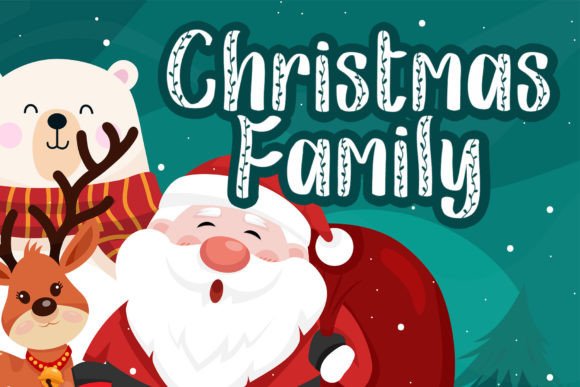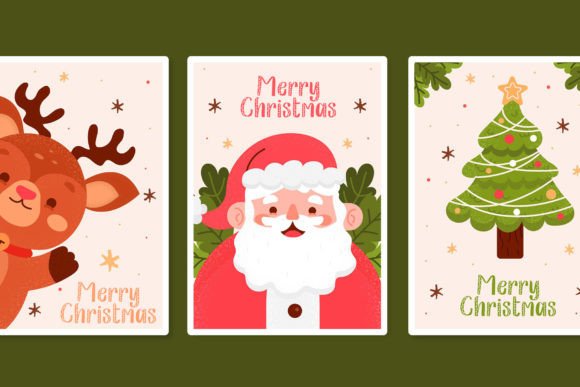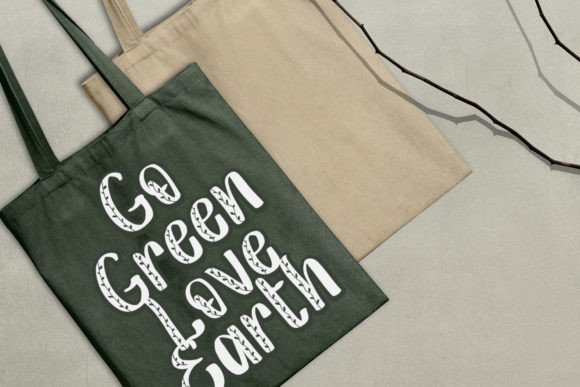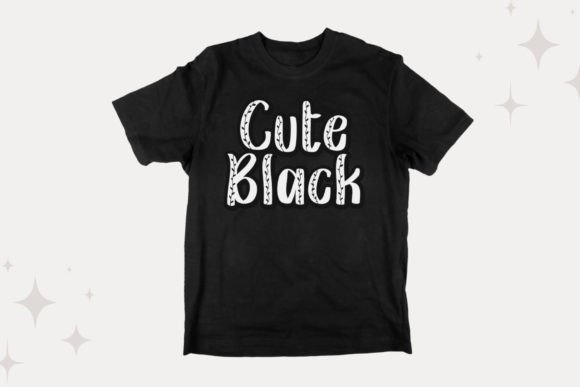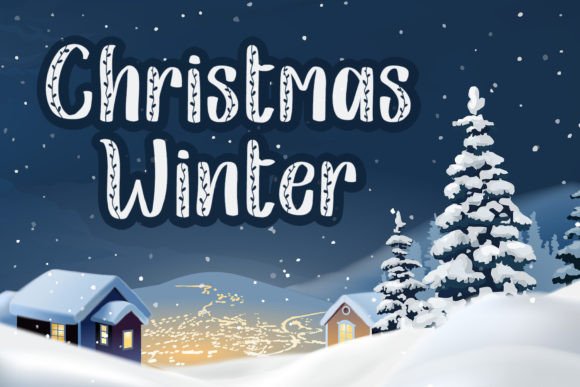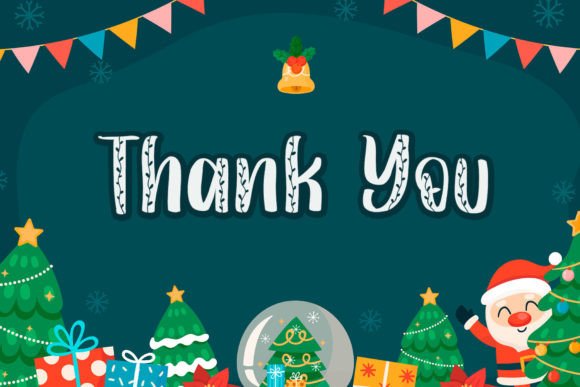
Introducing Christmas Leaf Font: The Perfect Choice for Festive Designs
Are you looking for a font that captures the essence of the holiday season? Look no further than Christmas Leaf Font, a crafty and cute display font that’s perfect for a variety of festive designs. In this article, we’ll explore the features and benefits of Christmas Leaf Font, and show you how to make the most of this versatile font.
What is Christmas Leaf Font?
Christmas Leaf Font is a display font designed to evoke the spirit of the holiday season. With its playful and whimsical design, this font is perfect for children’s activities, Christmas and Thanksgiving-themed projects, posters, logos, packaging, and school projects. The font features a unique blend of bold and delicate lines, making it both eye-catching and charming.
Key Features of Christmas Leaf Font
- Crafty and Cute Design: Christmas Leaf Font boasts a distinctive, hand-crafted design that’s both fun and festive.
- Display Font: This font is perfect for headlines, titles, and short phrases, making it ideal for posters, logos, and packaging.
- Versatile: Use Christmas Leaf Font for a variety of projects, from children’s activities to school projects, and from Christmas to Thanksgiving-themed designs.
- Easy to Read: Despite its playful design, Christmas Leaf Font is easy to read, making it perfect for designs that require a clear and concise message.
Benefits of Using Christmas Leaf Font
So why choose Christmas Leaf Font for your next project? Here are just a few benefits of using this versatile font:
- Adds a Touch of Festivity: Christmas Leaf Font instantly adds a touch of festivity to any design, making it perfect for holiday-themed projects.
- Stand Out from the Crowd: With its unique design, Christmas Leaf Font helps your design stand out from the crowd, grabbing the attention of your audience.
- Perfect for Children’s Projects: The playful design of Christmas Leaf Font makes it perfect for children’s activities, such as coloring pages, worksheets, and activity sheets.
- Customizable: Experiment with different colors, sizes, and styles to make Christmas Leaf Font your own.
Tips for Using Christmas Leaf Font
Here are some tips for getting the most out of Christmas Leaf Font:
- Use it as a Headline Font: Christmas Leaf Font is perfect for headlines and titles, making it a great choice for posters, flyers, and brochures.
- Pair it with Other Fonts: Experiment with pairing Christmas Leaf Font with other fonts to create a unique and eye-catching design.
- Experiment with Colors: Try out different colors and textures to give your design a personalized touch.
- Use it for Digital and Print Designs: Christmas Leaf Font is perfect for both digital and print designs, making it a versatile addition to your font library.
| Font Name | Christmas Leaf Font |
| Author | Letterafa Studio |
Christmas Leaf Font is a versatile and festive font that’s perfect for a variety of designs, from children’s activities to holiday-themed projects. With its crafty and cute design, this font is sure to add a touch of festivity to any project. Whether you’re a designer, crafter, or DIY enthusiast, Christmas Leaf Font is a great addition to your font library.